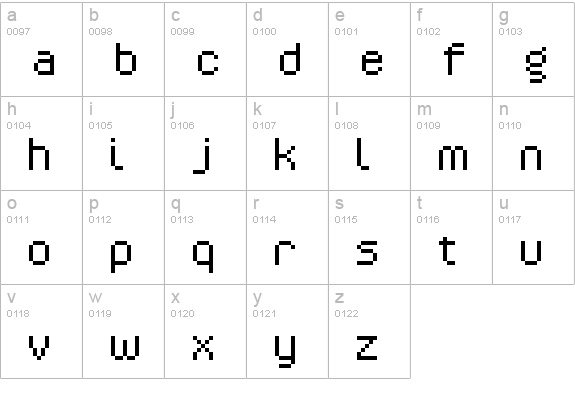
Caliper font is a modern and sleek typeface that exudes sophistication and elegance. With its clean lines and sharp edges, Caliper font is perfect for a wide range of design projects, from branding to editorial design. Its versatility makes it a popular choice for both print and digital applications. What sets Caliper font apart is its unique blend of professionalism and creativity, making it ideal for conveying a sense of style and authority. Whether you're designing a sleek corporate identity or a contemporary website, Caliper font will help you achieve a polished and refined look. Best of all, Caliper font is available for free download at FontsMarket.com. This means you can easily access this stunning typeface and use it in your projects without any cost. Don't miss out on the opportunity to elevate your designs with the timeless elegance of Caliper font. Download it today and see the difference it can make in your work.